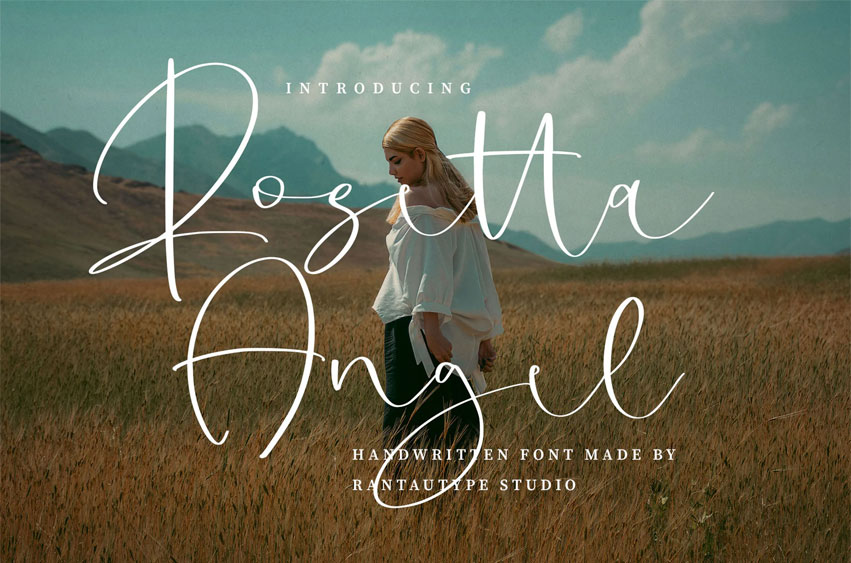
Rosetta Angel Font
Rosetta Angel Font is a handwritten font made by Rantautype Studio. Rosetta Angel is a perfectly choice for any creative endeavor, creating, modern, chic, lifestyle design such as logotype, title, cover, branding, invitations, wedding designs, display and magazine, social media posts, advertisements, printed quotes, product packaging, corporate brand, product designs, labels, photography, watermarks, special events and any other project with modern touch.